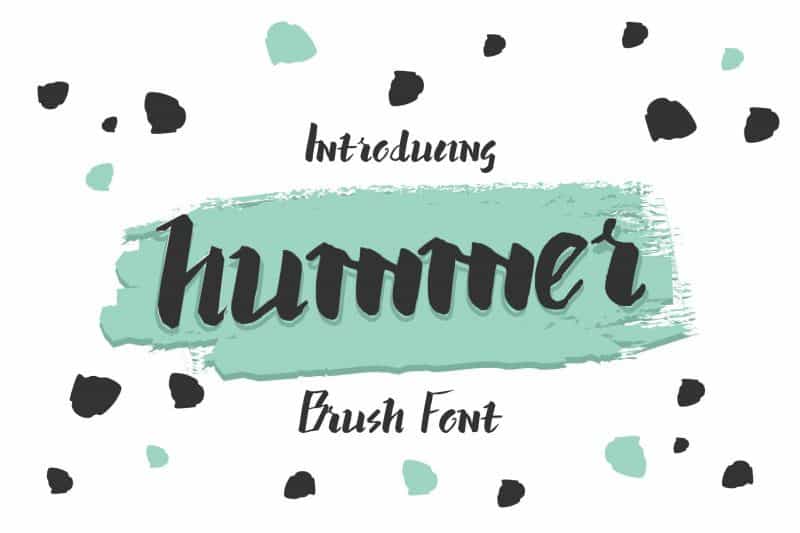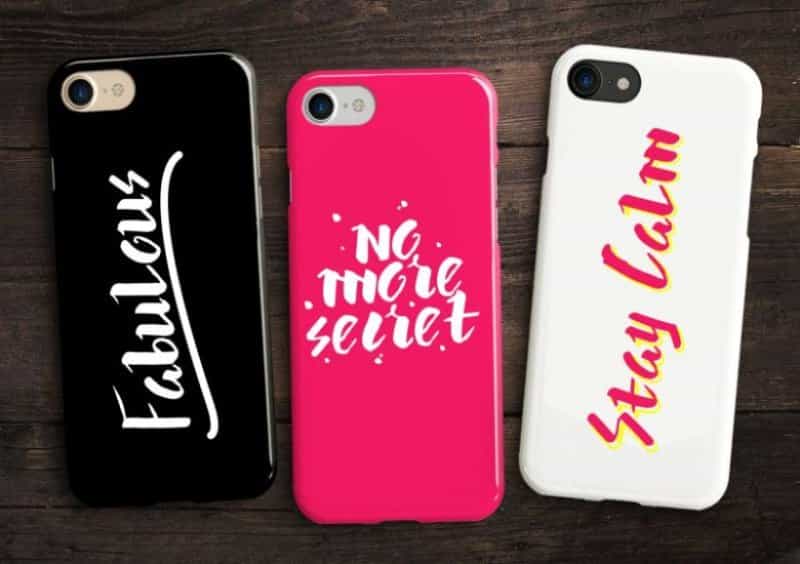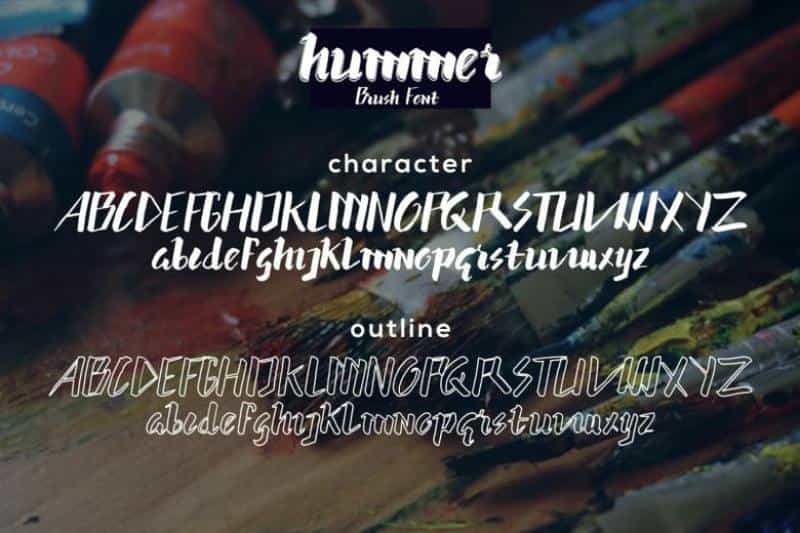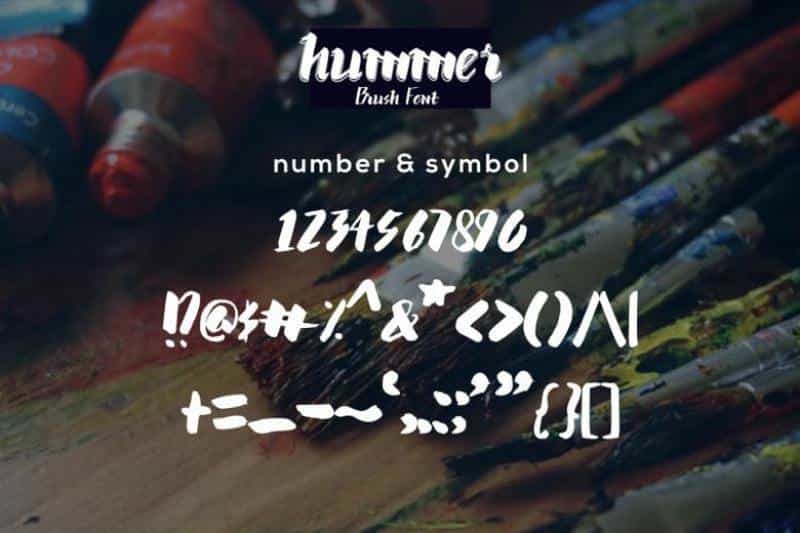
What’s up guys? Introducing: Hummer Brush Font! It was created by hand in 2017. This will be great for merchandising, products, shirt, signage, branding, etc. This font will also be great for many restaurant theme: Japanese, Chinese, Traditional and Mexican are some of the ethnic cuisines that can be found in this area while Taco is another popular food.